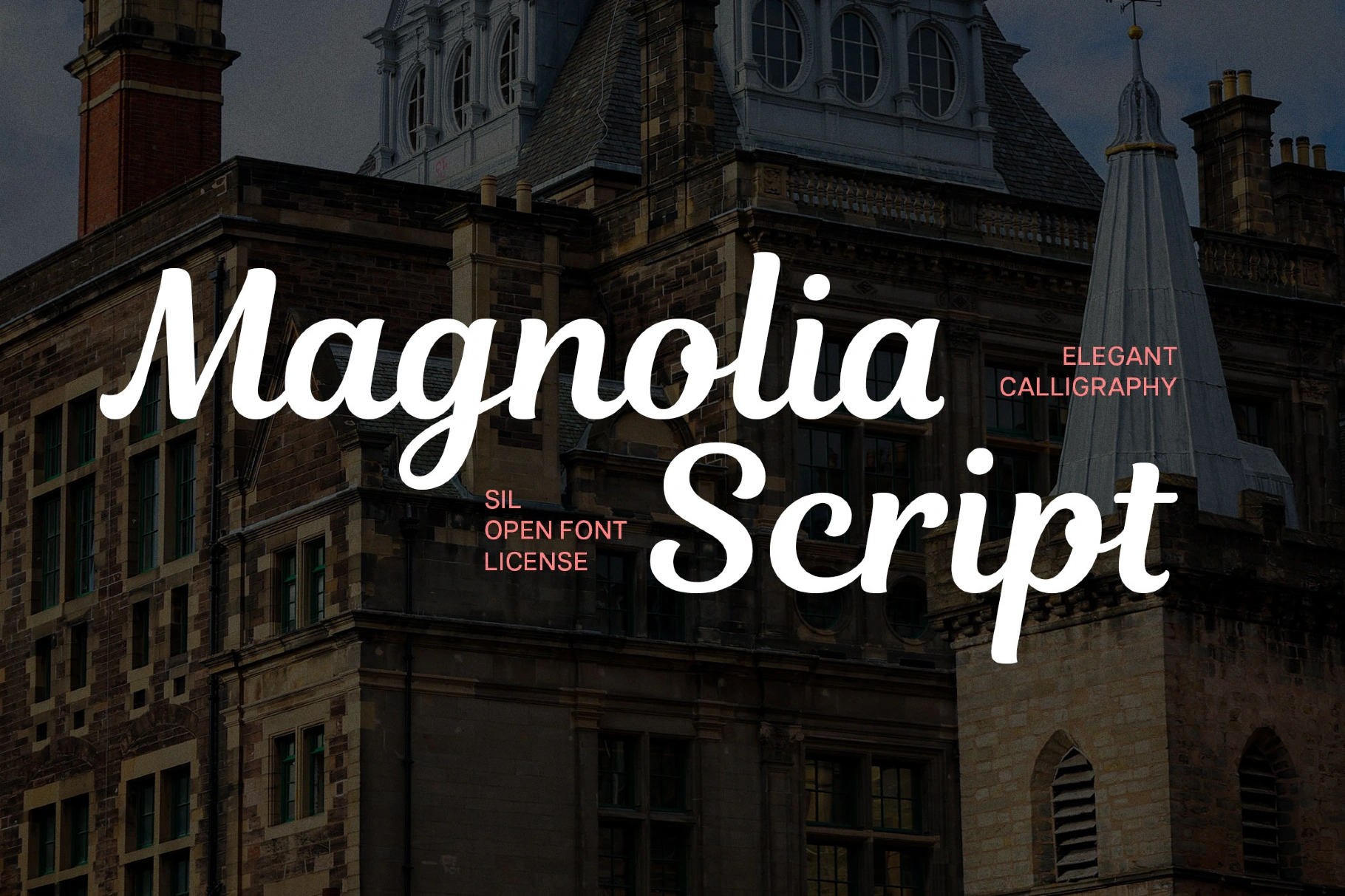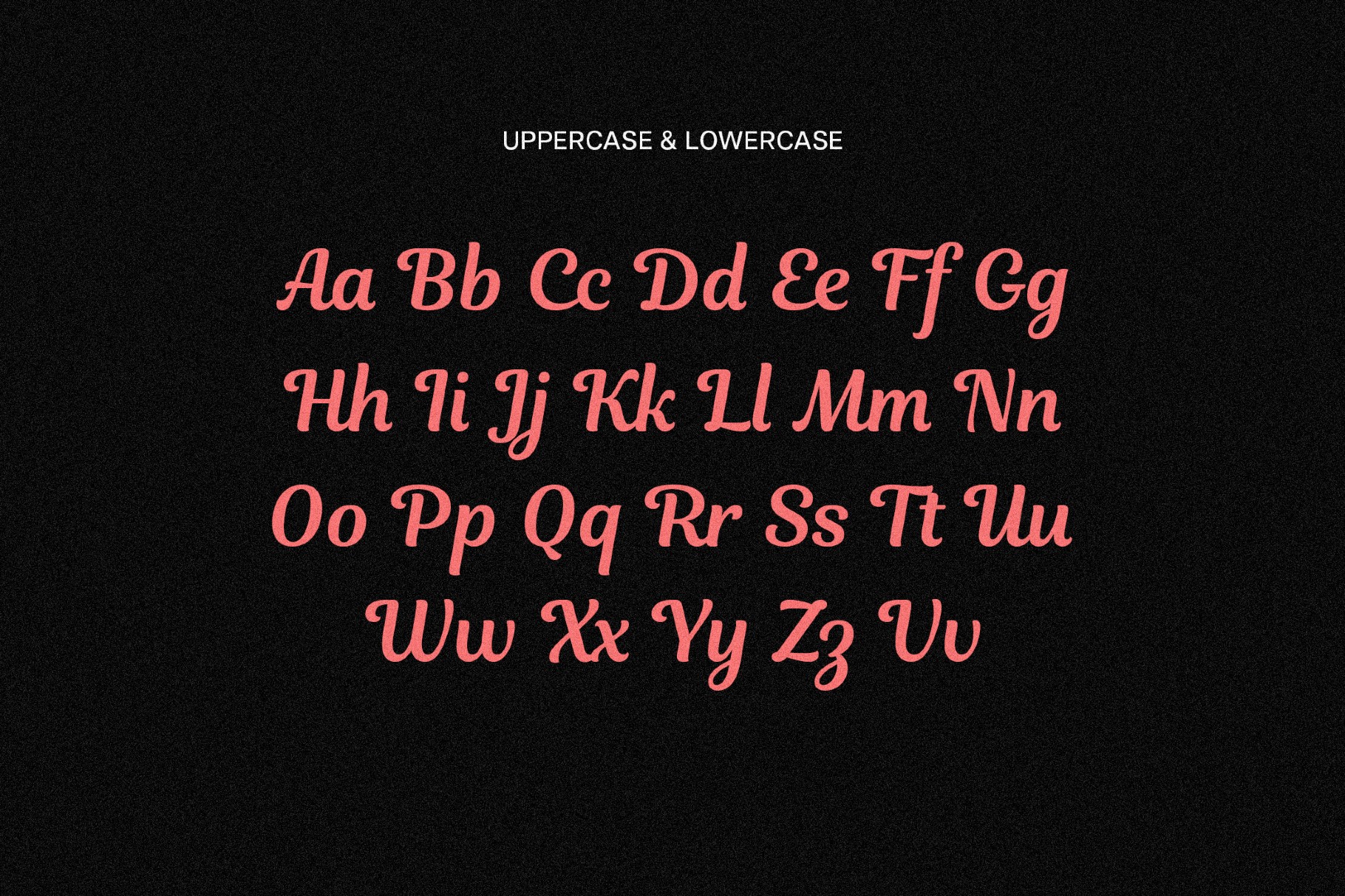
Magnolia Script Font
Magnolia Script
The script delivers an elegant calligraphy with generous loops and poised swashes. These features recall Edwardian invitations and Art Nouveau shop cards, with a hint of Belle Époque perfume labels and café marquees. Use it for logo wordmarks, wedding suites, beauty labels, boutique signs, book covers, café menus, and social headers.